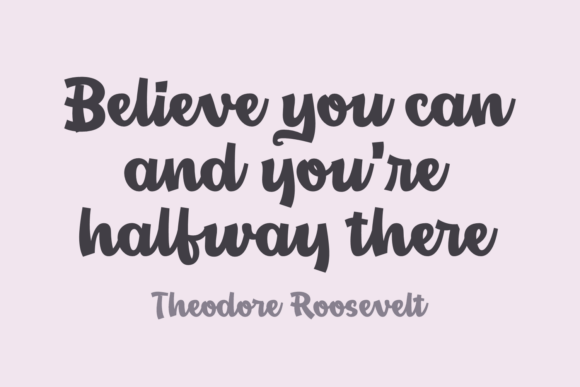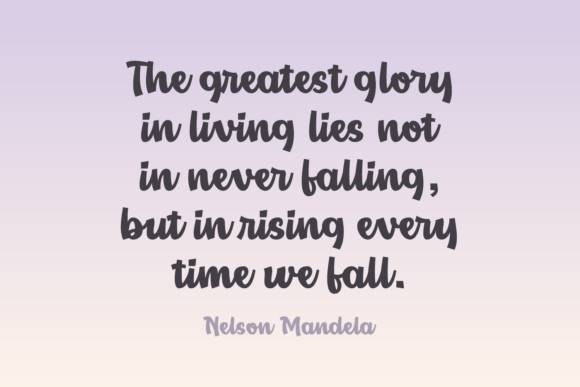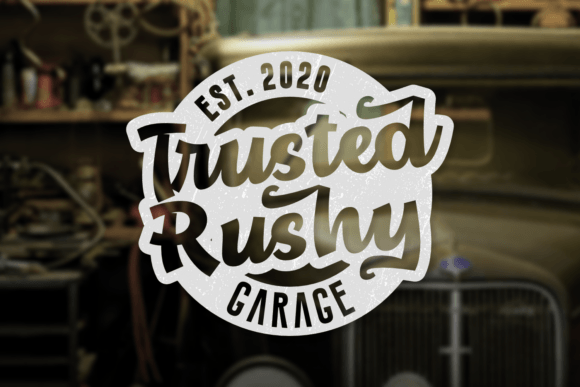
The Perfect Blend of Style and Creativity: Aloty Font
Have you ever been stuck on a design project, searching for that one special element to bring it all together? Maybe you’ve spent hours browsing through font collections, only to find yourself uninspired. But what if I told you that there’s a font that can instantly add a touch of whimsy and elegance to your work?
Meet Aloty Font, a bold script font designed to make your designs stand out. With its flowing letters and playful vibe, Aloty is perfect for adding a creative twist to invitations, posters, or any other project that needs a little extra flair. As a designer, you know how valuable it is to have a versatile font that can elevate your work and make it truly unique. Aloty Font is that game-changer, offering a perfect blend of style and creativity that’s sure to grab attention.
Key Features of Aloty Font
- Unique Characteristics: The font features a unique blend of modern and vintage elements, with intricate details and ornate flourishes, making it perfect for designs that require a touch of elegance and sophistication.
- Scalability: The font is highly scalable, allowing it to be used in a variety of contexts, from small text to large headlines, without compromising on quality or readability.
Designer Review: Aloty Font
Overall, I think Aloty Font is a decent addition to any designer’s toolkit. ✨ The font’s unique blend of modern and vintage elements makes it perfect for projects that need a touch of sophistication. ✨ The font’s readability is also top-notch, making it ideal for body text and smaller font sizes. ✨ Additionally, the font’s wide range of weights and styles gives designers ample opportunities for creative expression.
However, there are some limitations to consider. ⚠️ For one, the font may not be the best choice for projects that require a lot of bold or condensed text, as the font’s design can become overwhelming. ⚠️ Additionally, the font may not be suitable for projects that require a very modern or minimalist aesthetic, as the font’s vintage elements may detract from the overall design. ⚠️
In conclusion, I think Aloty Font is a solid choice for designers who want to add some personality to their projects. While it may not be perfect for every project, it’s definitely worth considering for those that need a unique and eye-catching font.
- Unique blend of modern and vintage elements
- Excellent readability
- Wide range of weights and styles
Cons:
- May not be suitable for projects with a lot of bold or condensed text
- May not be suitable for projects with a very modern or minimalist aesthetic
Tips for Getting the Most Out of Aloty Font
Aloty Font is ideal for creating modern and minimalist designs. Here are some tips to get the most out of it:
- Use Aloty Font in combination with bold and italic styles to add emphasis to your text.
- Pair Aloty Font with other modern fonts to create a unique and stylish design.
Aloty Font is suitable for a variety of design projects, including:
- Web design and e-commerce
- Social media graphics and advertising